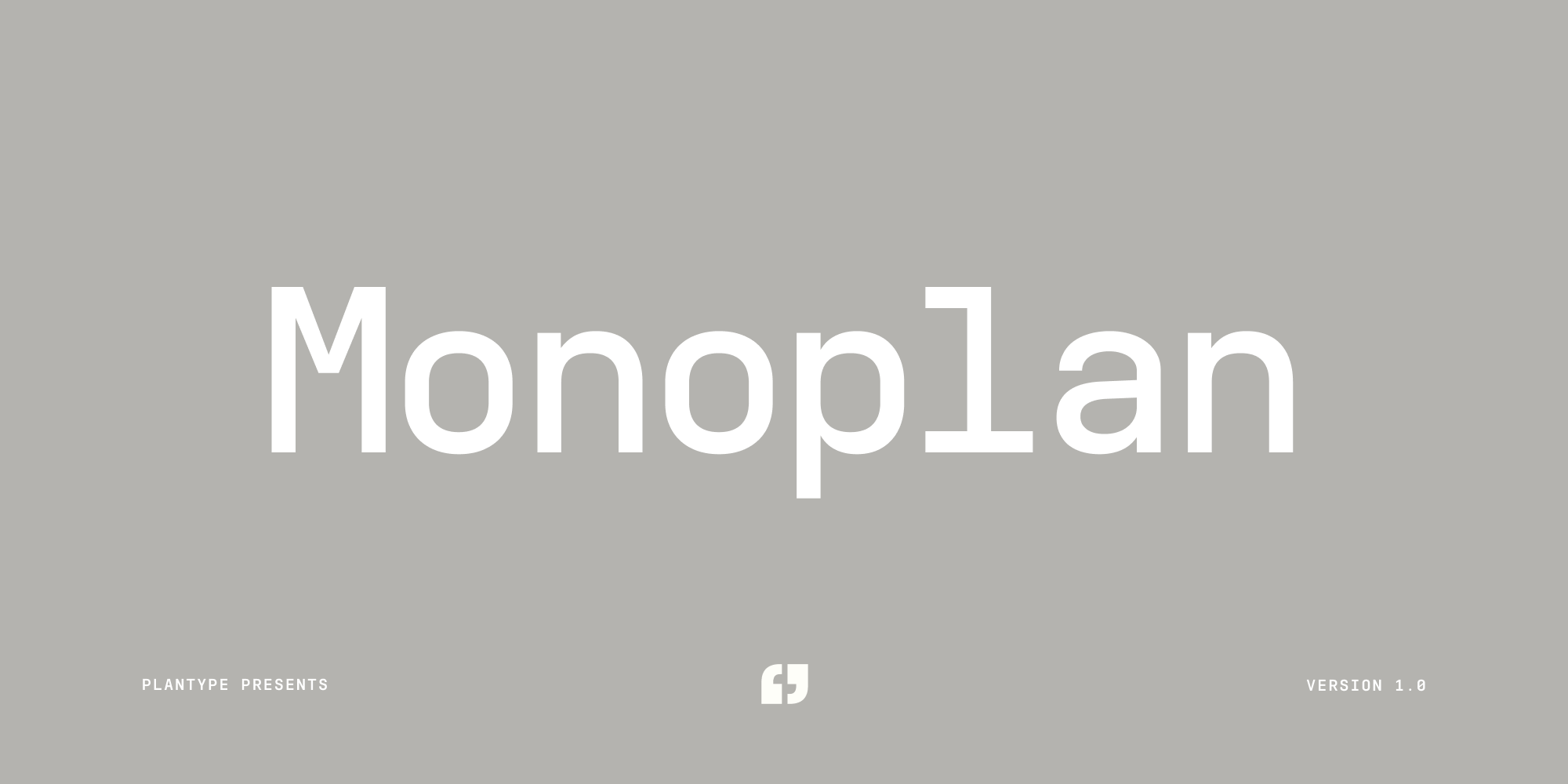
Monoplan Font is perfect for aviation industry branding, vintage aircraft exhibitions, aerospace museum materials, pilot training manuals, aviation history publications, aircraft maintenance documentation, flight school presentations, and classic aviation enthusiast projects. This aeronautical typeface brings early aviation heritage and pioneering flight spirit to any design project celebrating the golden age of aviation and the courage of aviation pioneers.
What makes Monoplan Font exciting is its authentic capture of early aviation aesthetics combined with engineering precision that perfectly embodies the adventurous spirit and mechanical innovation of aviation's heroic era. The streamlined letterforms feature aerodynamic proportions and vintage aircraft-inspired details that create an unmistakably aeronautical appearance. Each character soars with pioneering courage, making it ideal for brands that celebrate flight innovation, aviation heritage, and the timeless dream of human flight achievement.
The Monoplan Font family typically includes regular and bold weights with complete uppercase and lowercase letters, numbers, punctuation marks, and aviation symbols. Many versions feature additional aircraft-inspired decorative elements, flight motifs, and aeronautical symbols that enhance the aviation aesthetic and provide creative flexibility for aerospace and aviation design applications.
Whether you're developing aviation heritage brands or creating flight education materials, Monoplan Font Free Download offers unmatched aeronautical authority and vintage aviation charm. This distinguished typography choice transforms ordinary text into flight experiences that resonate with audiences fascinated by aviation history and aerospace innovation. The font's aeronautical construction ensures exceptional performance across aviation applications while maintaining its distinctive monoplane character that makes every design project feel like a journey through aviation's golden age where brave pilots conquered the skies in magnificent flying machines.